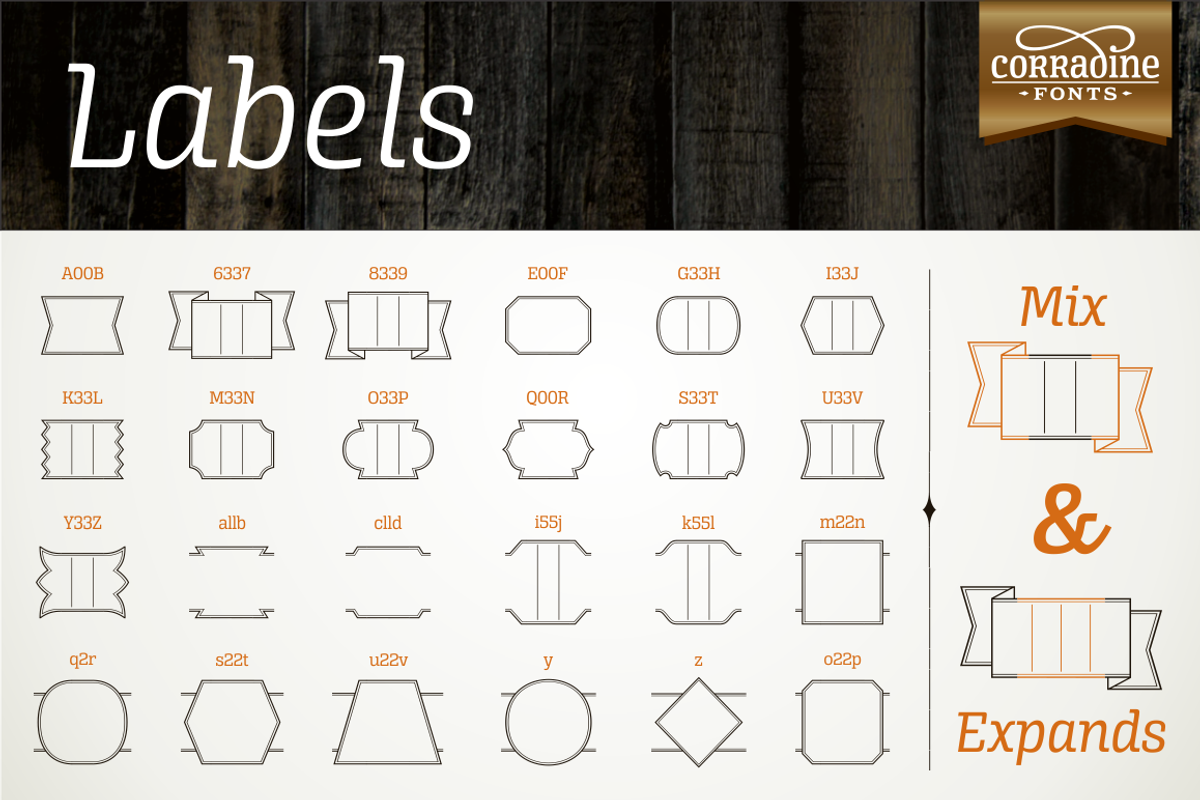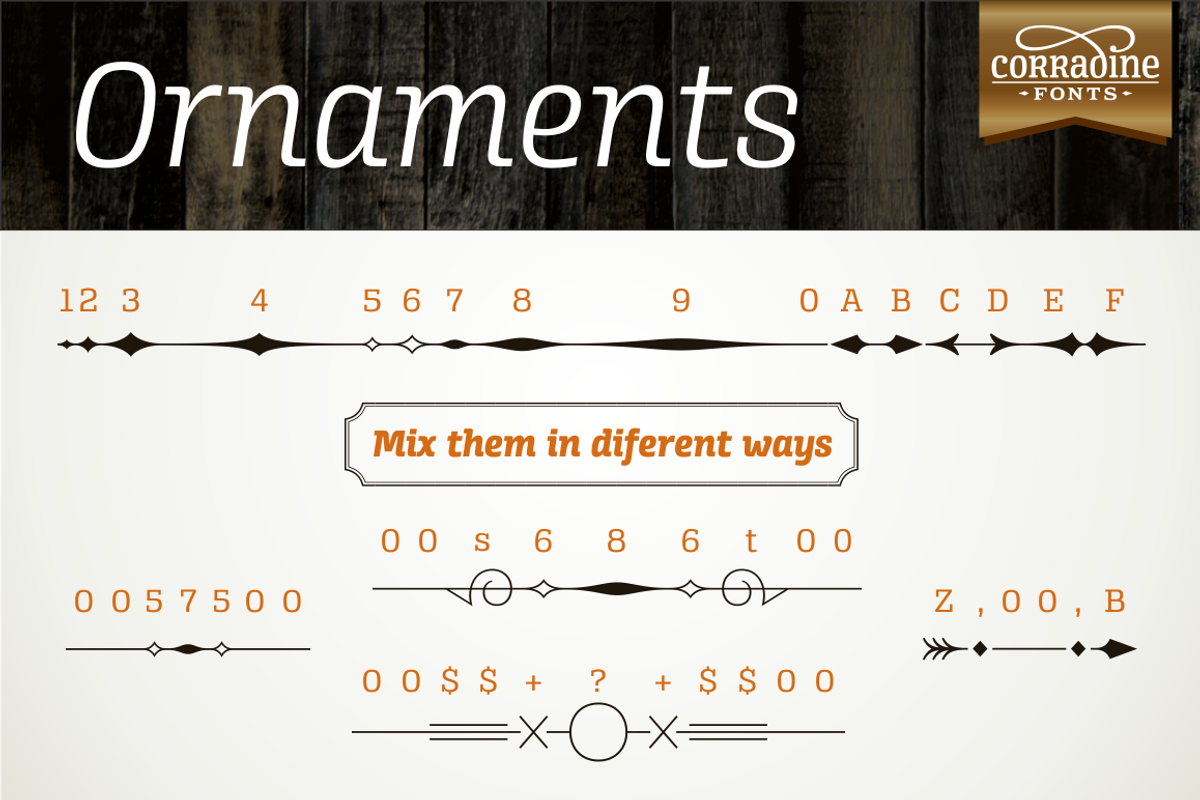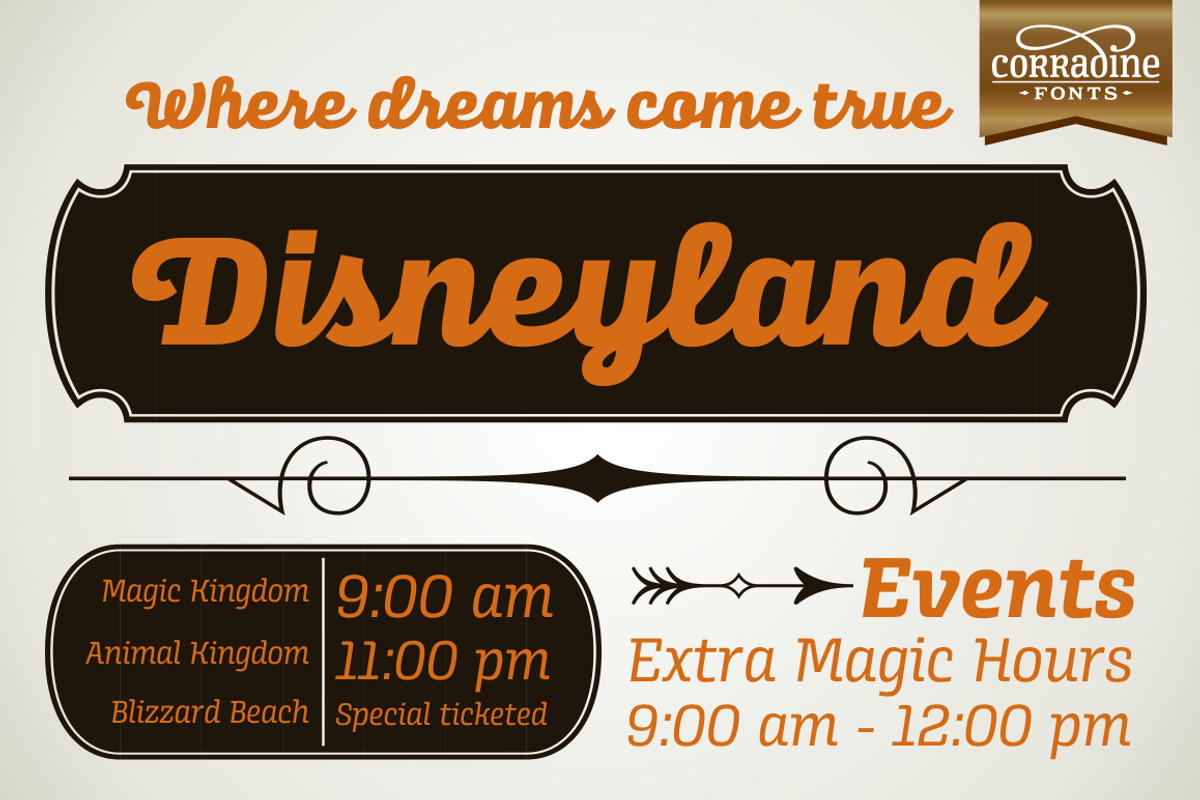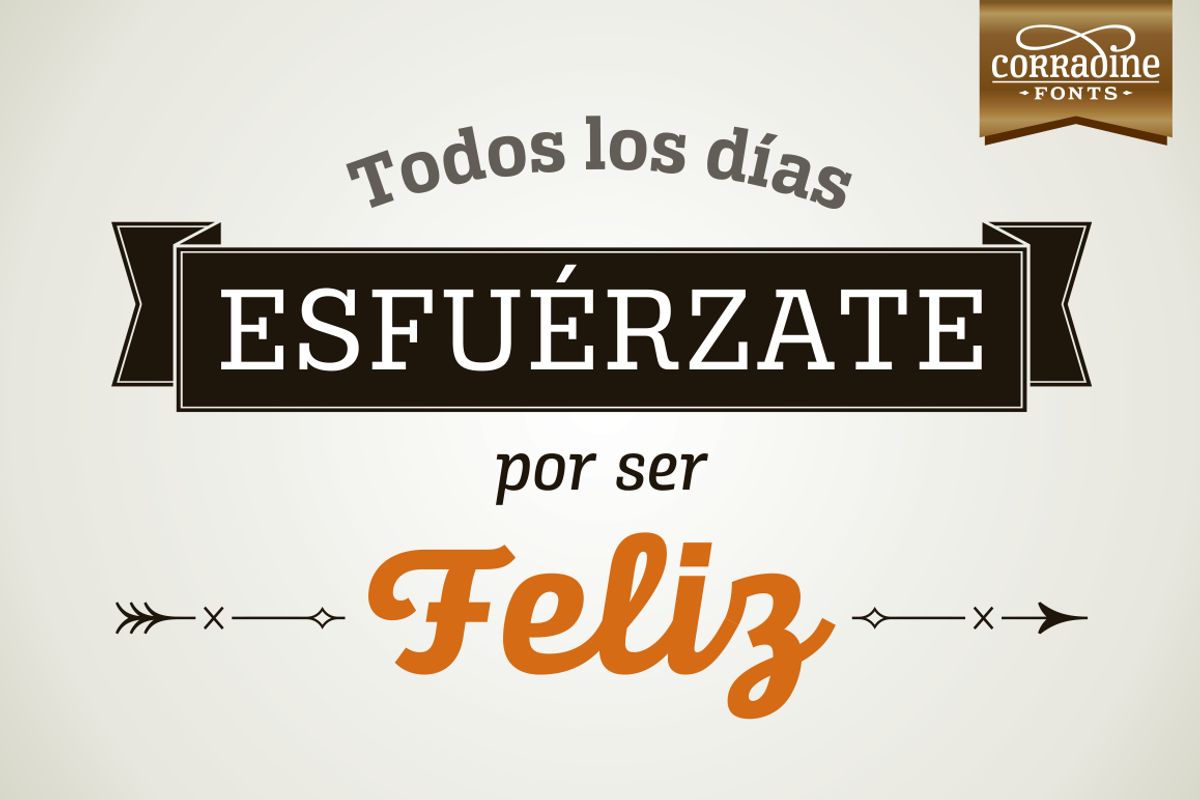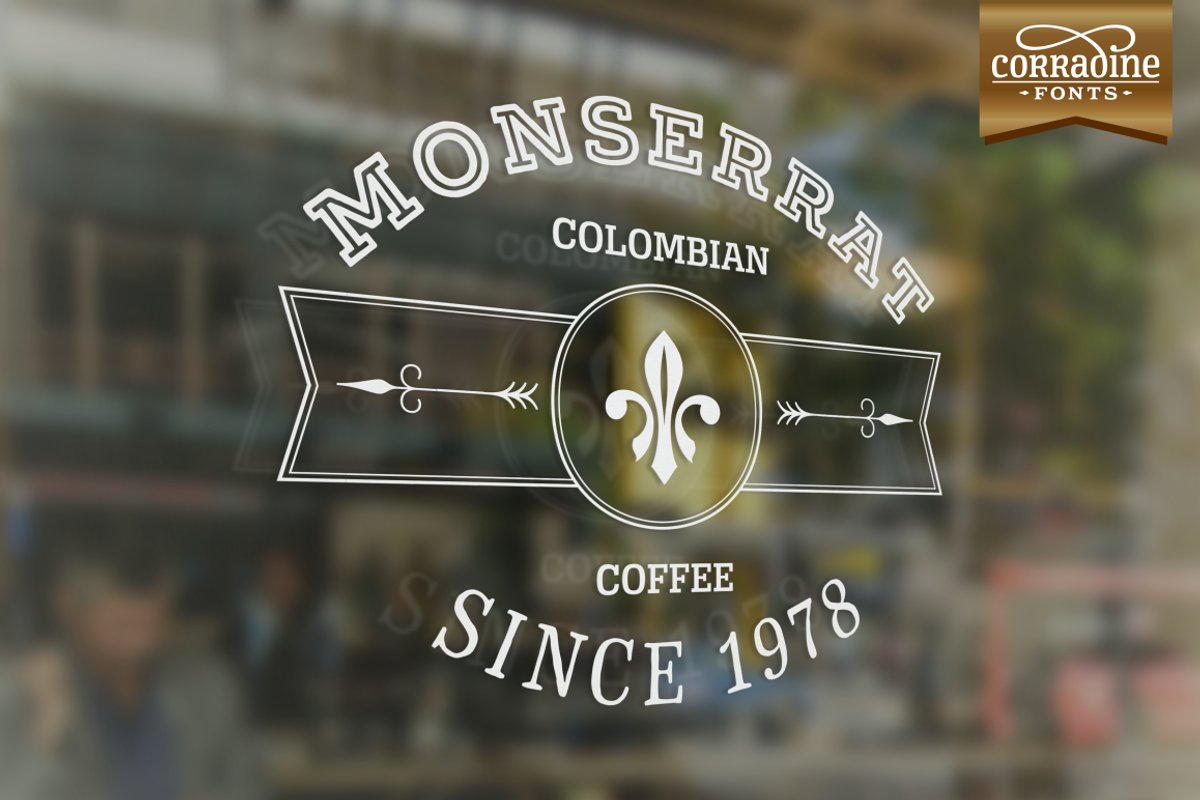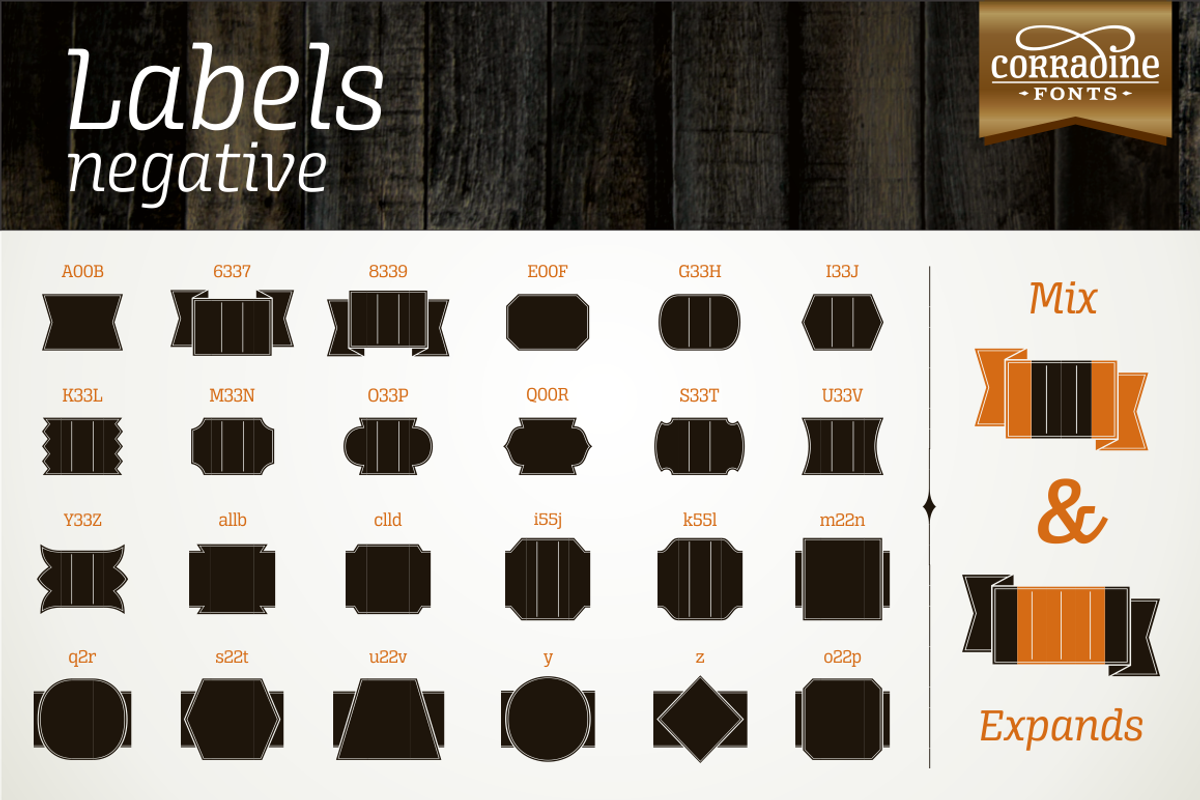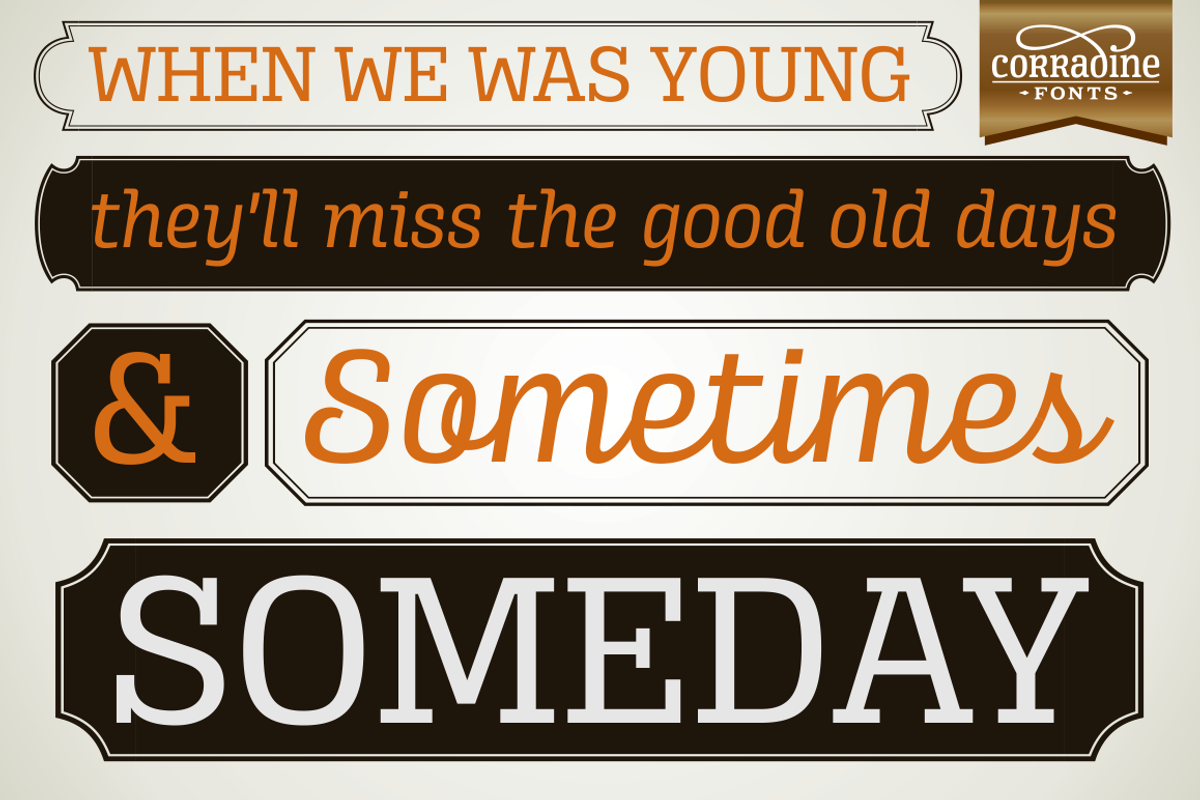
Alianza Labels & Ornaments
Alianza Labels & Ornaments by Corradine Fonts is a font selected for branding, posters, packaging, typography.
- Alianza Labels & Ornaments belongs to a complex typographic system with slab soul, which includes three different but complementary styles s
- Alianza Labels Regular
- Alianza Labels Negative
- Alianza Ornaments Regular
Why Alianza Labels & Ornaments is worth a look
Alianza Labels & Ornaments by Corradine Fonts fits naturally into Branding, posters, packaging, typography.